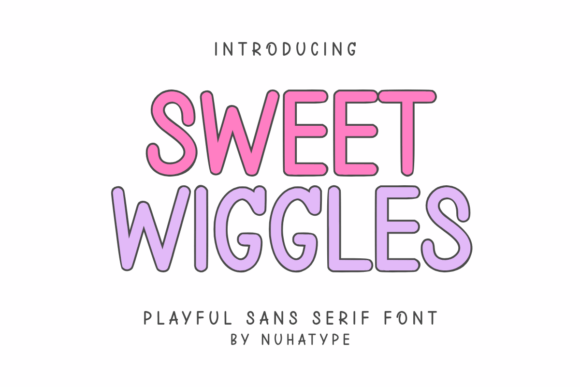
How Sweet Wiggles Transformed My Brand’s Visual Identity
A Font That Speaks Volumes
When I first started my small handmade soap business, I knew that the visual elements of my brand were just as important as the product itself. I had a great product, but I was struggling to make it stand out in a crowded market. One day, while browsing through a collection of free fonts, I stumbled upon Sweet Wiggles. It wasn’t just any font—it felt like it had a personality, a story, and a purpose.Practical Tips for Using Sweet Wiggles
- Use it for headlines and short phrases: Its clean lines and elegant curves make it perfect for titles, logos, and display text.
- Pair it with complementary fonts: For a balanced look, try pairing it with a bold sans serif for contrast or a soft serif for elegance.
- Test readability on different mediums: Ensure it works well on both digital screens and printed packaging, especially when used at smaller sizes.
- Consider multilingual support: If you plan to use the font internationally, verify that it supports the languages you need.